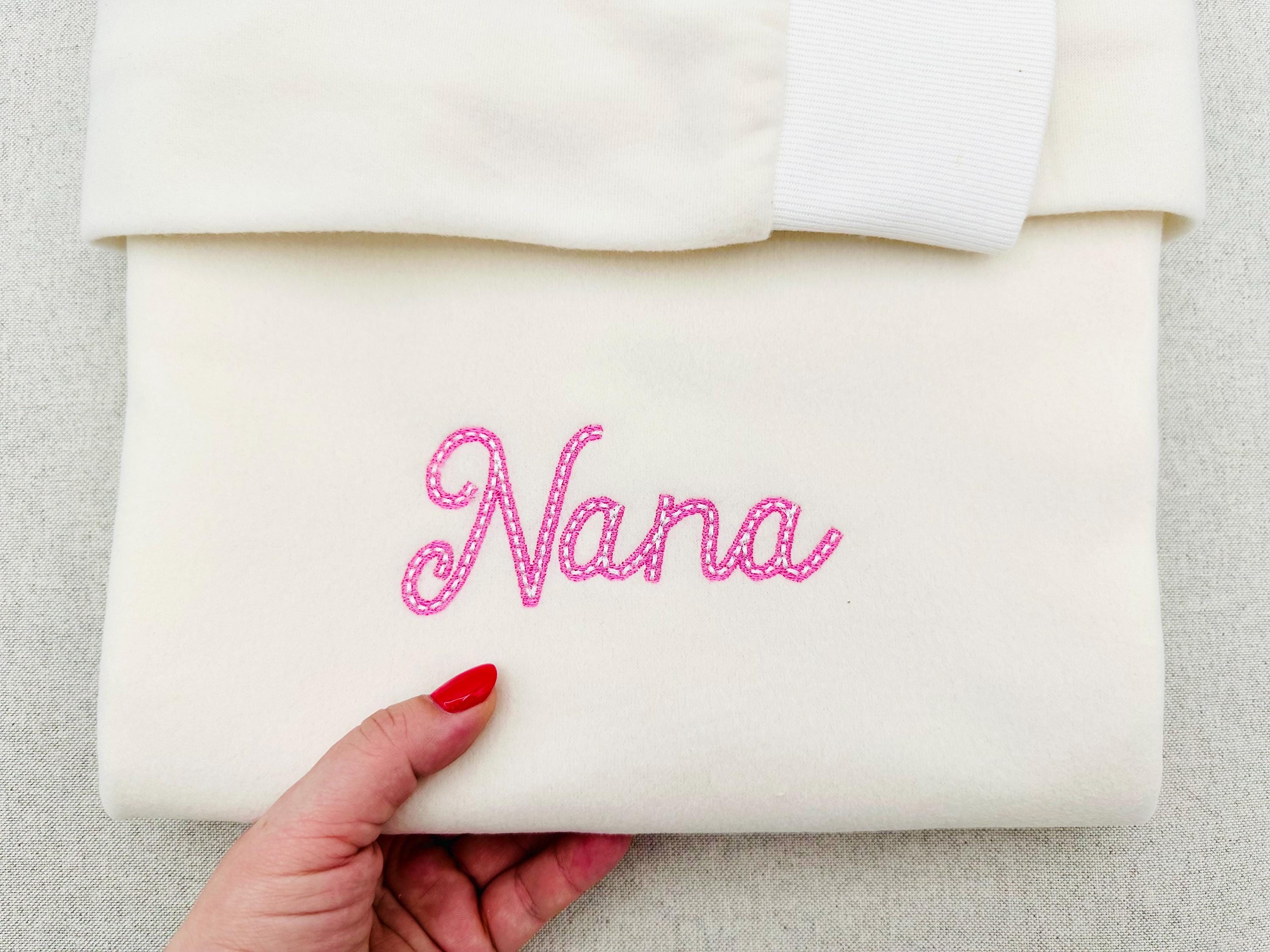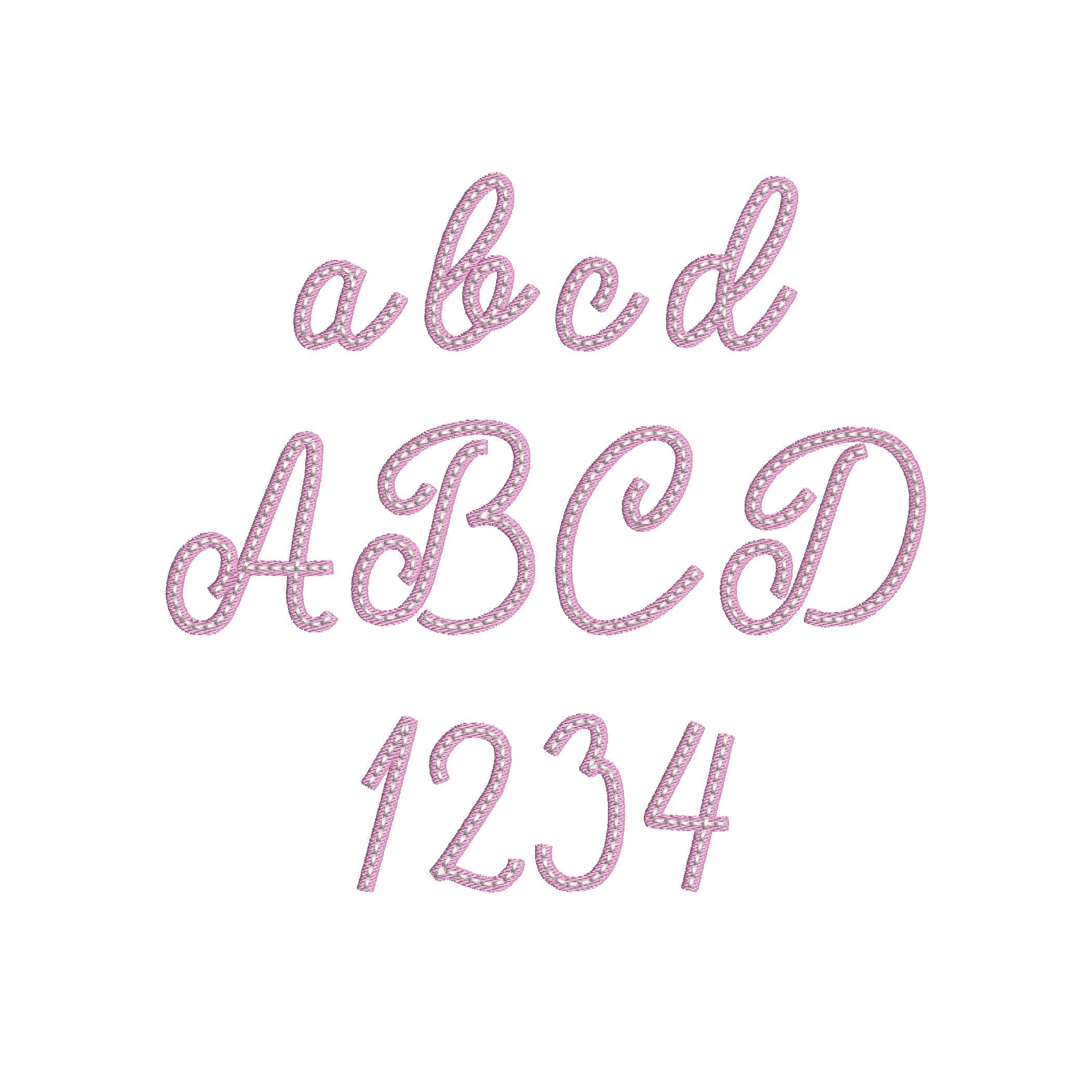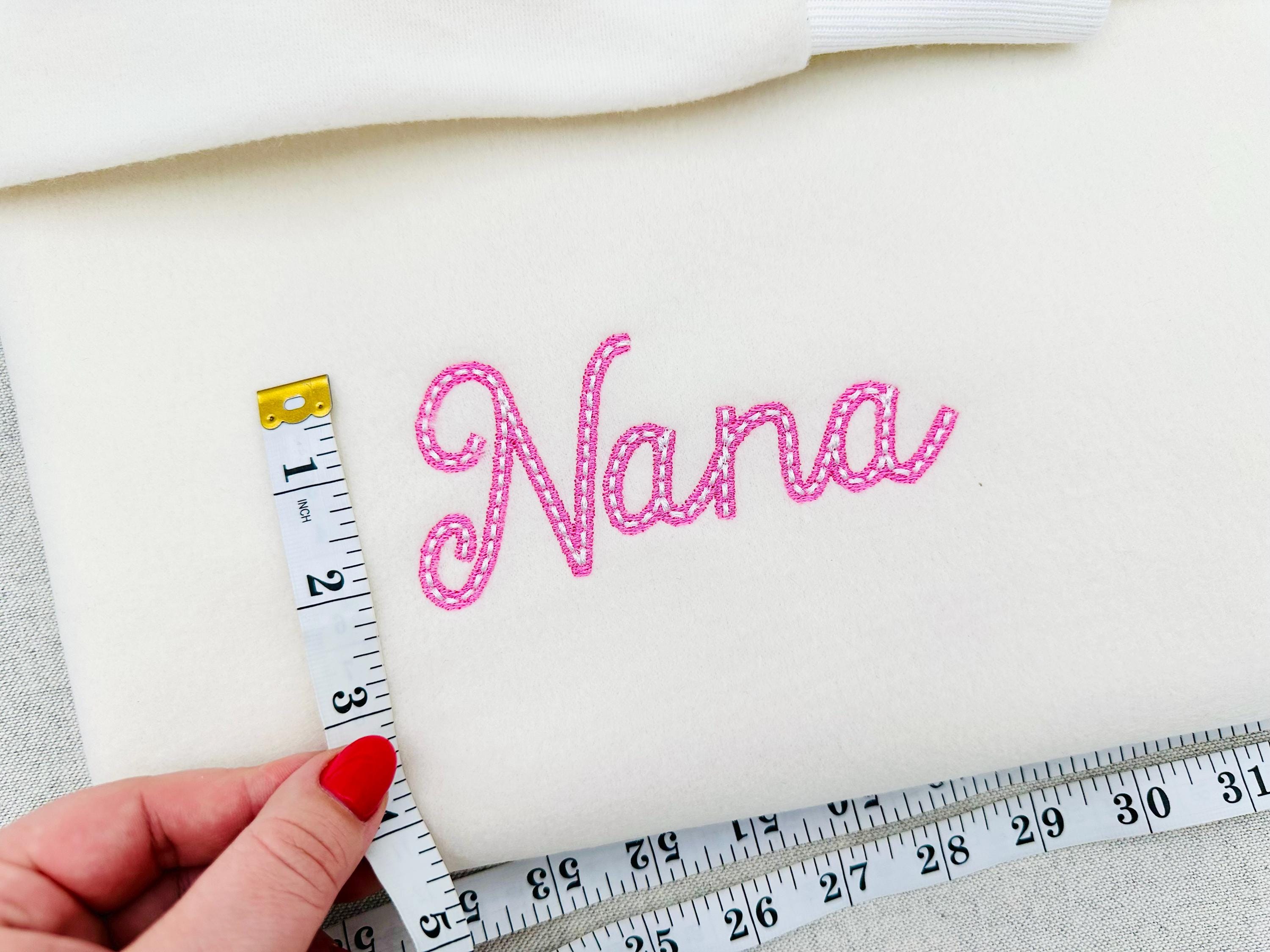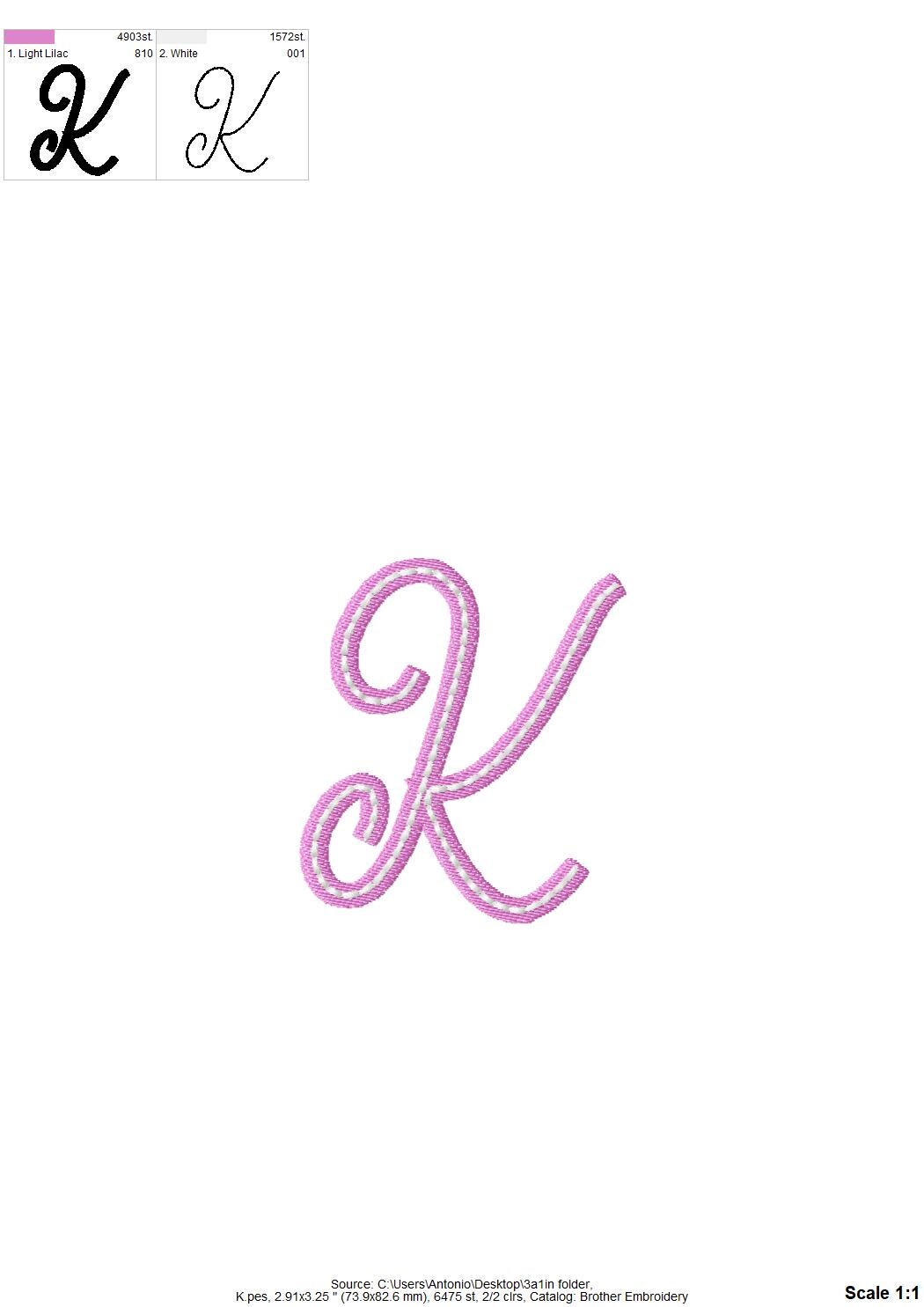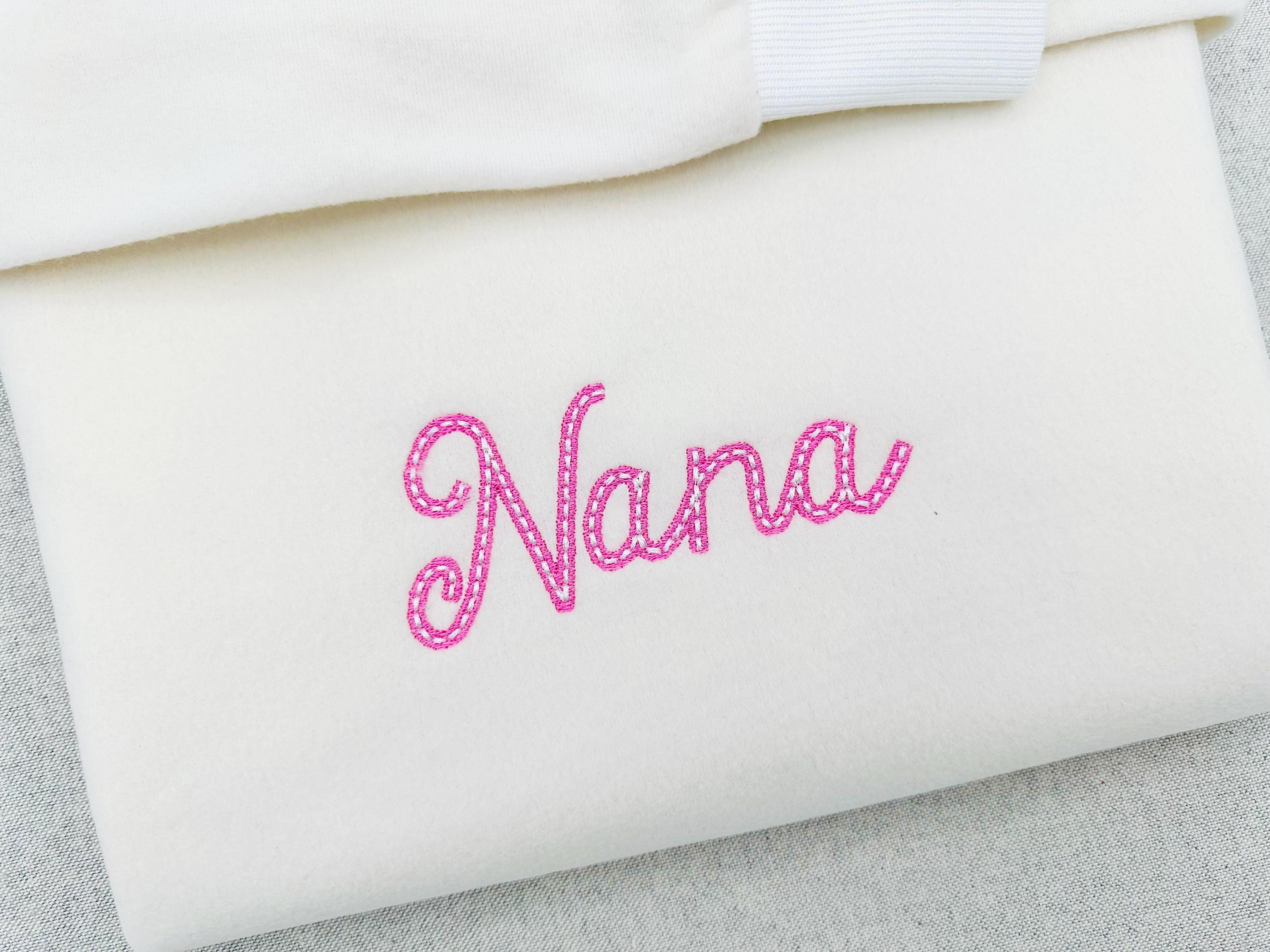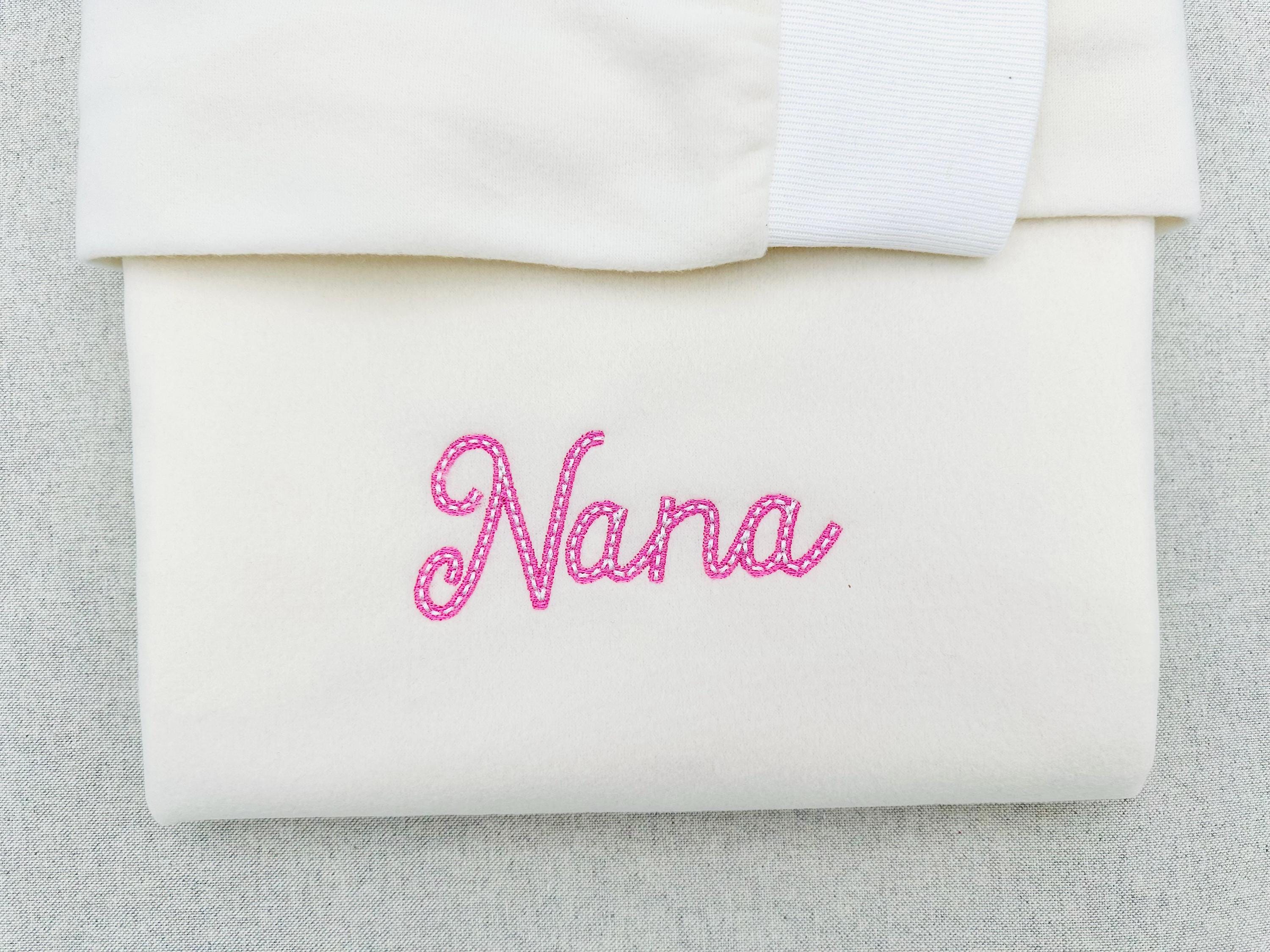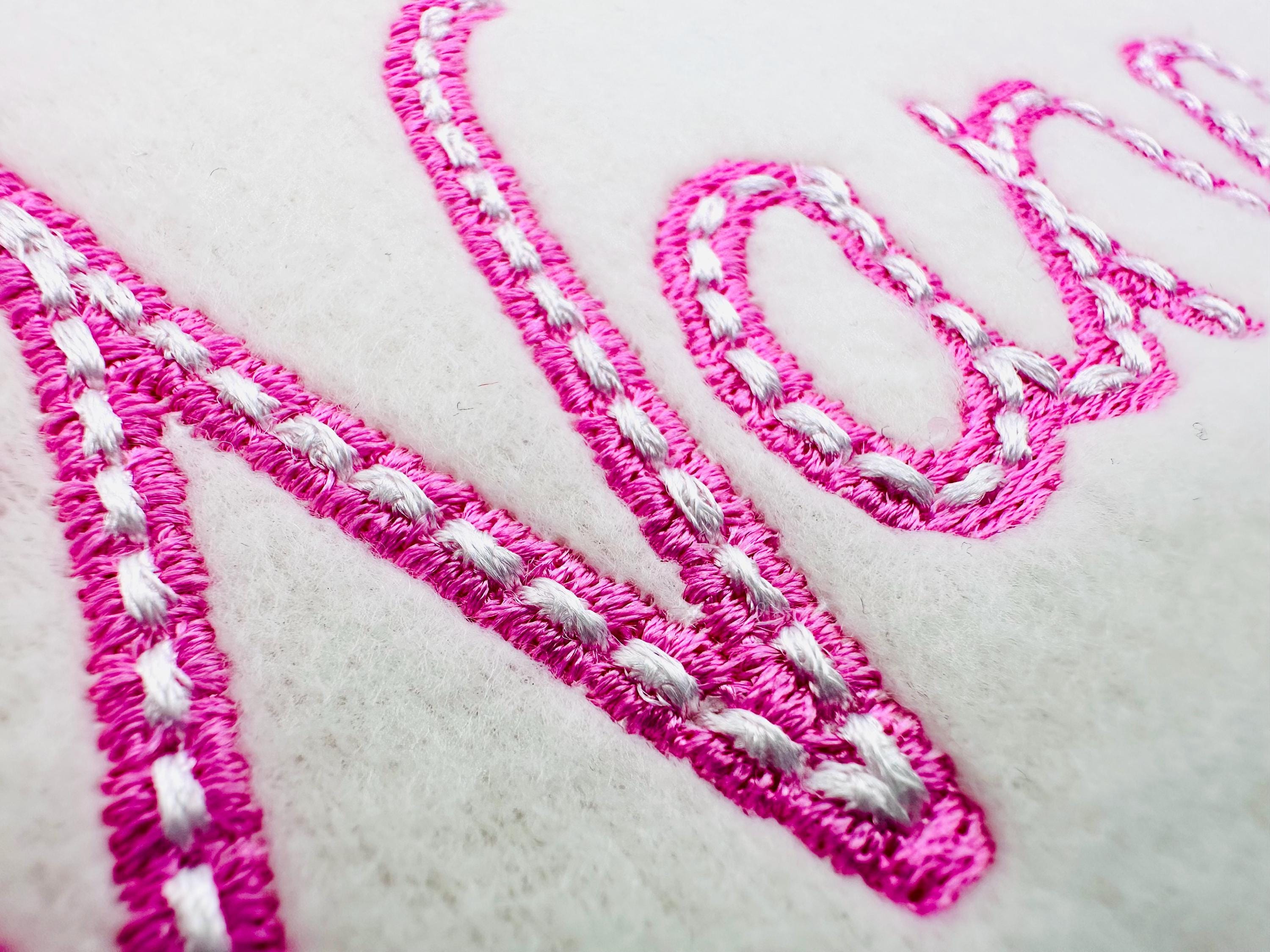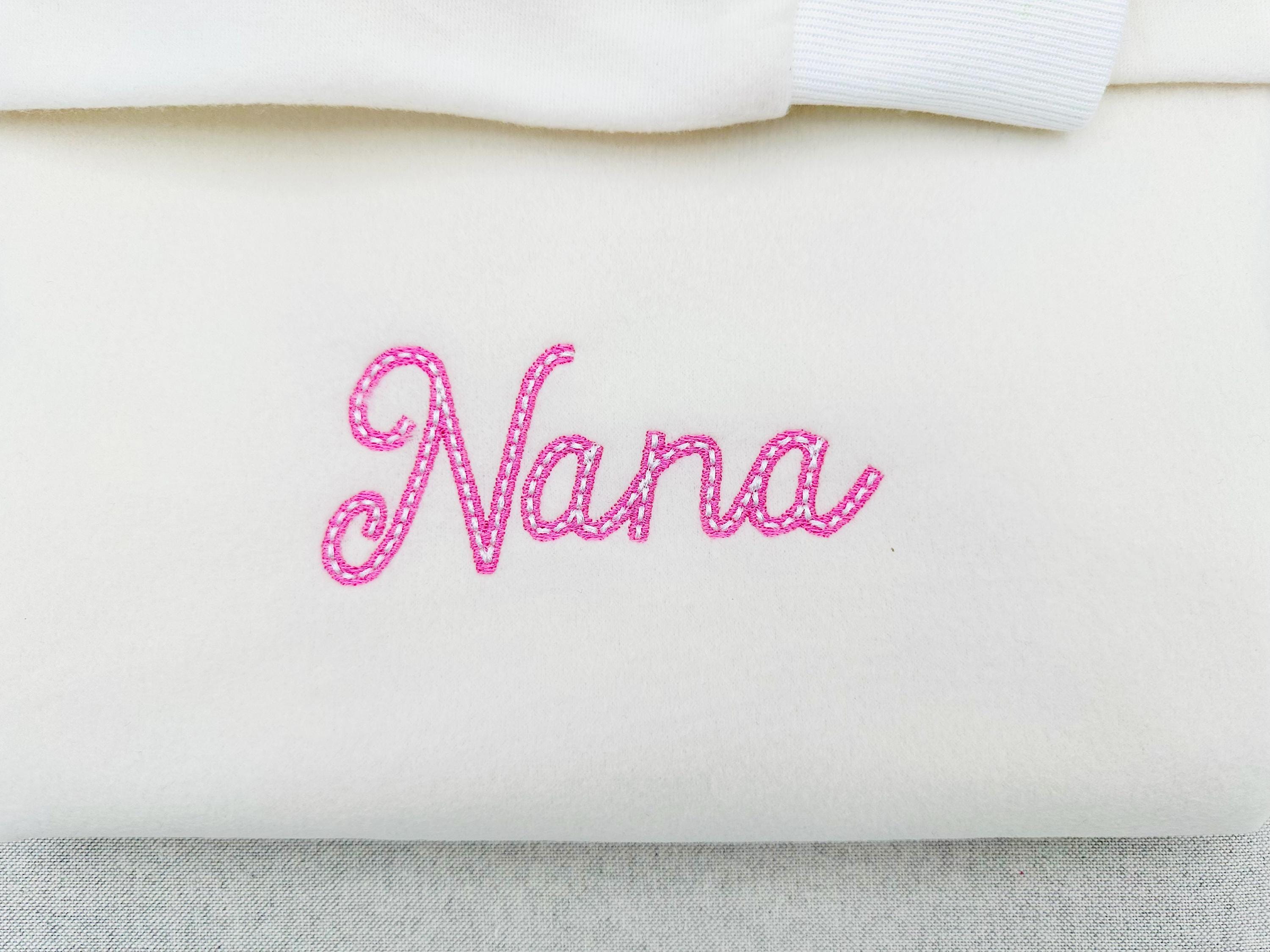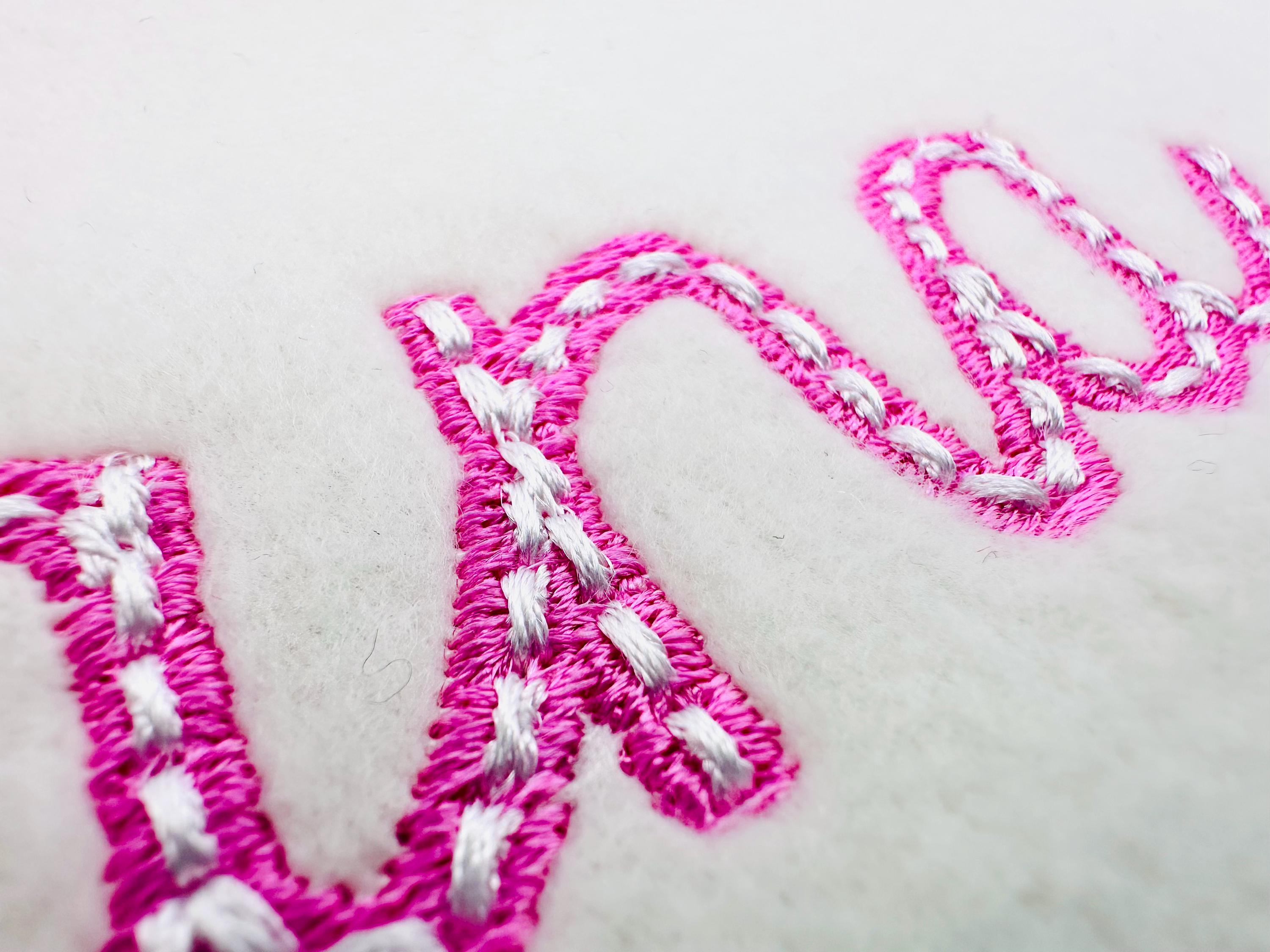
Handwritten script FONT Velvet with hand-stitch look on top machine embroidery designs awesome Alphabet Monogram sizes 2.2 up to 4.5 inch
Entire alphabet uppercase letters A-Z, numbers 0-9, and punctuation.